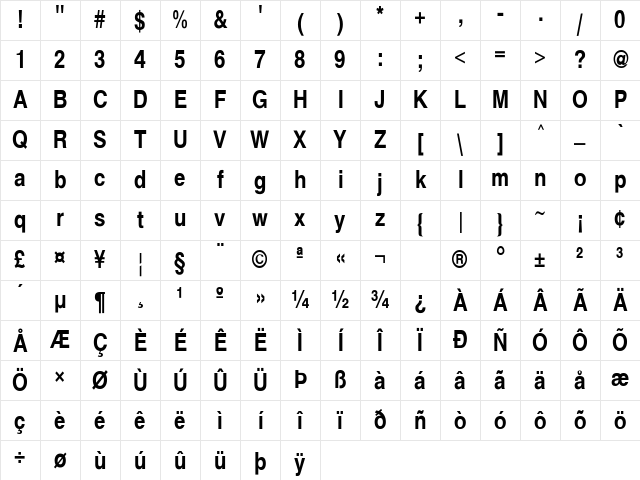
Complete HelveticaCnd-Bold Regular glyph index. Displaying only characters natively supported by HelveticaCnd-Bold Regular font.
HelveticaCnd-Bold is a composed and adaptable typeface that performs quietly and consistently across a wide range of design contexts. Its bold stroke weight gives it real presence on the page.